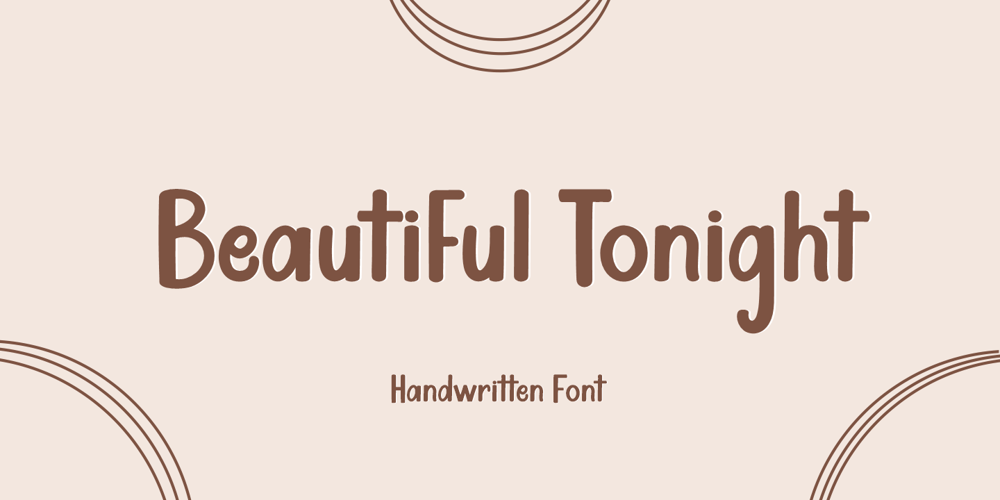
Beautiful Tonight
Beautiful Tonight font
Beautiful Tonight Font Family was designed by Muhammad Fikry and published by Fikryal. Beautiful Tonight contains 1 styles and family package options. Beautiful Tonight is a fancy font perfect for crafting, branding, invitation, stationery, wedding designs, social media posts, advertisements, product packaging, product designs, label, photography, watermark, special events, or anything.Beautiful Tonight with a full set of uppercase letters, multilingual symbols, numerals, and punctuation.